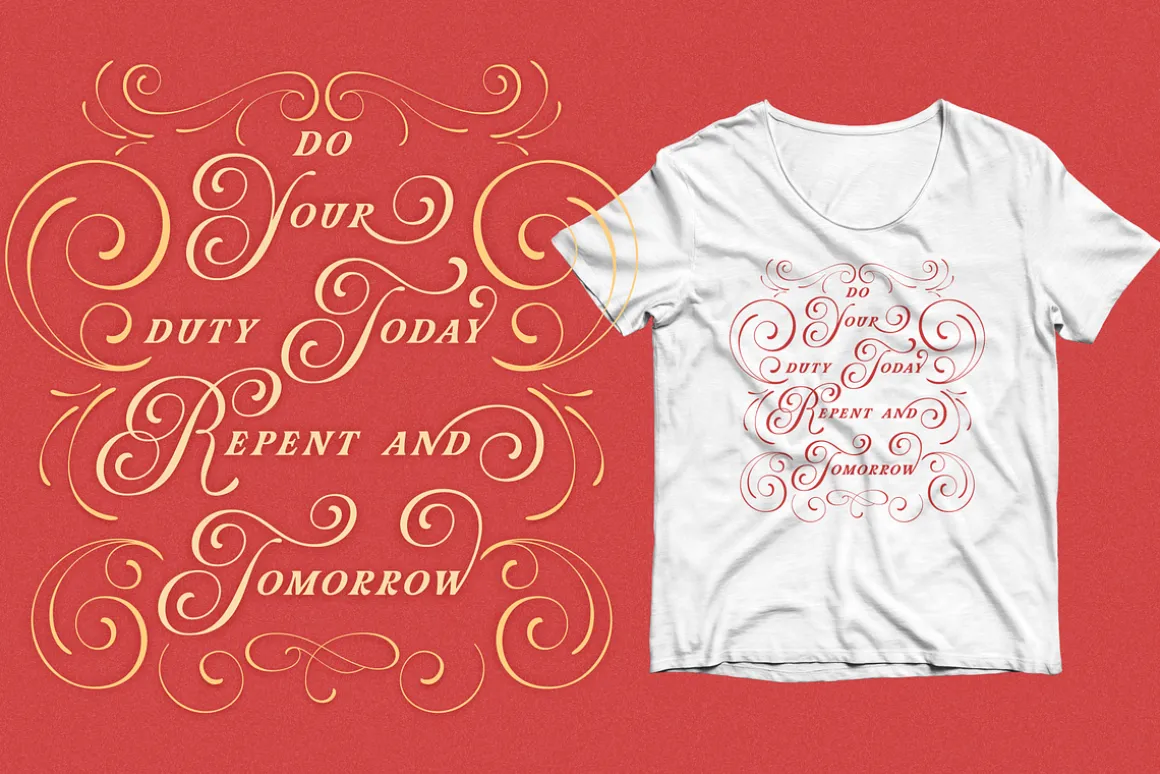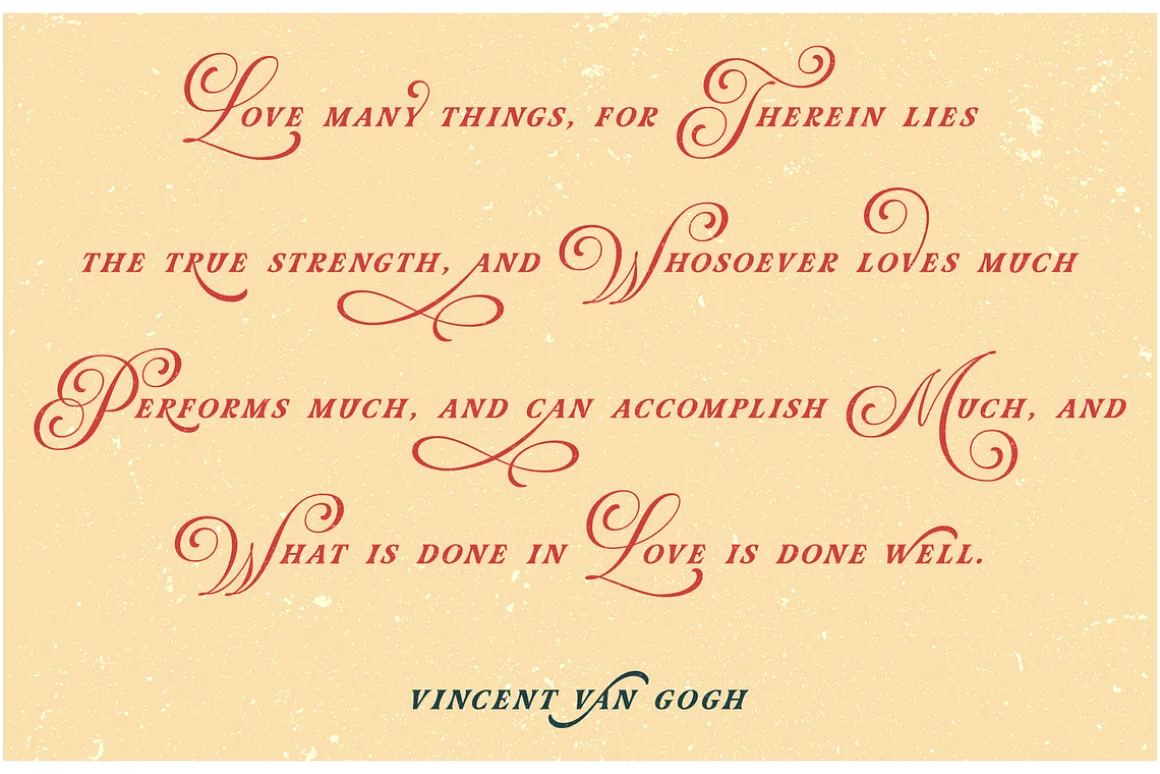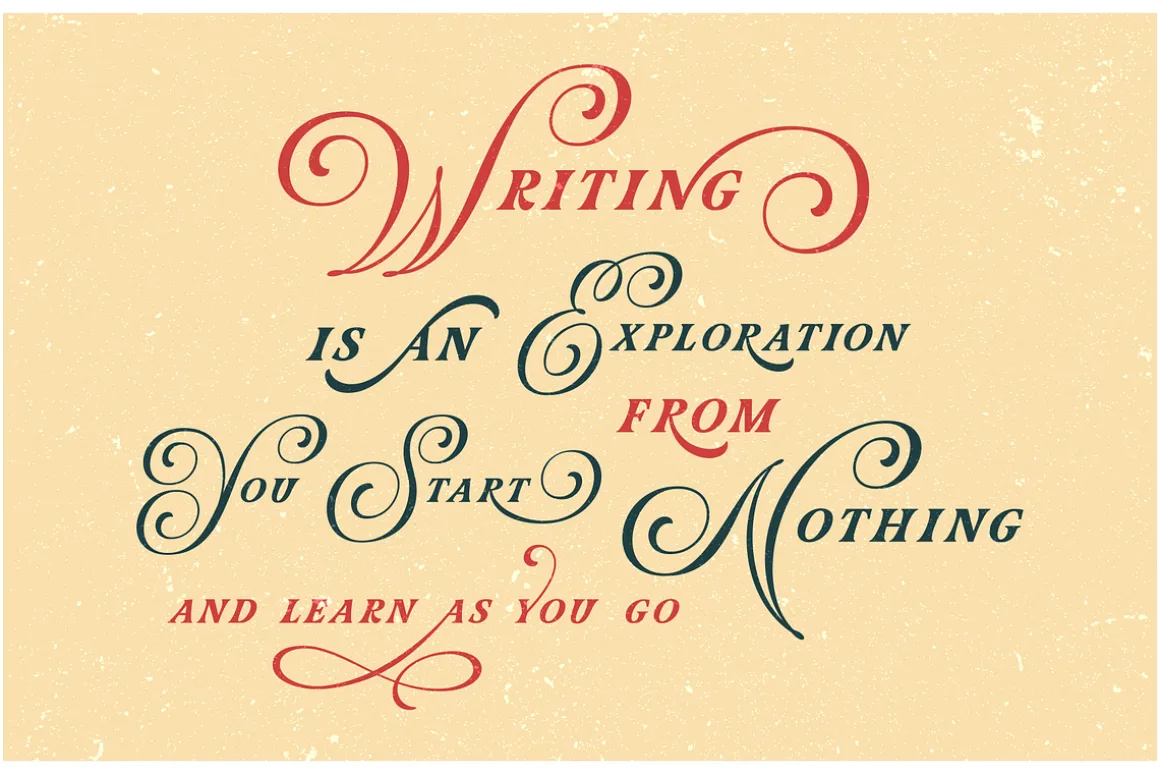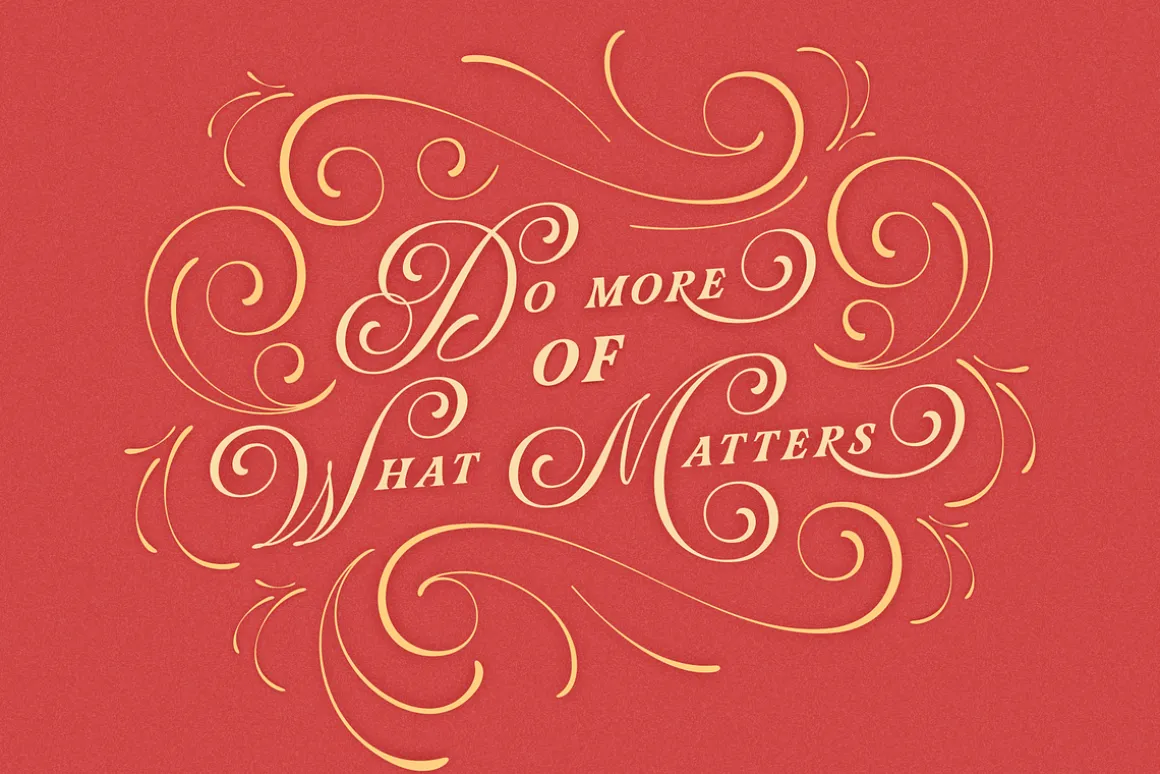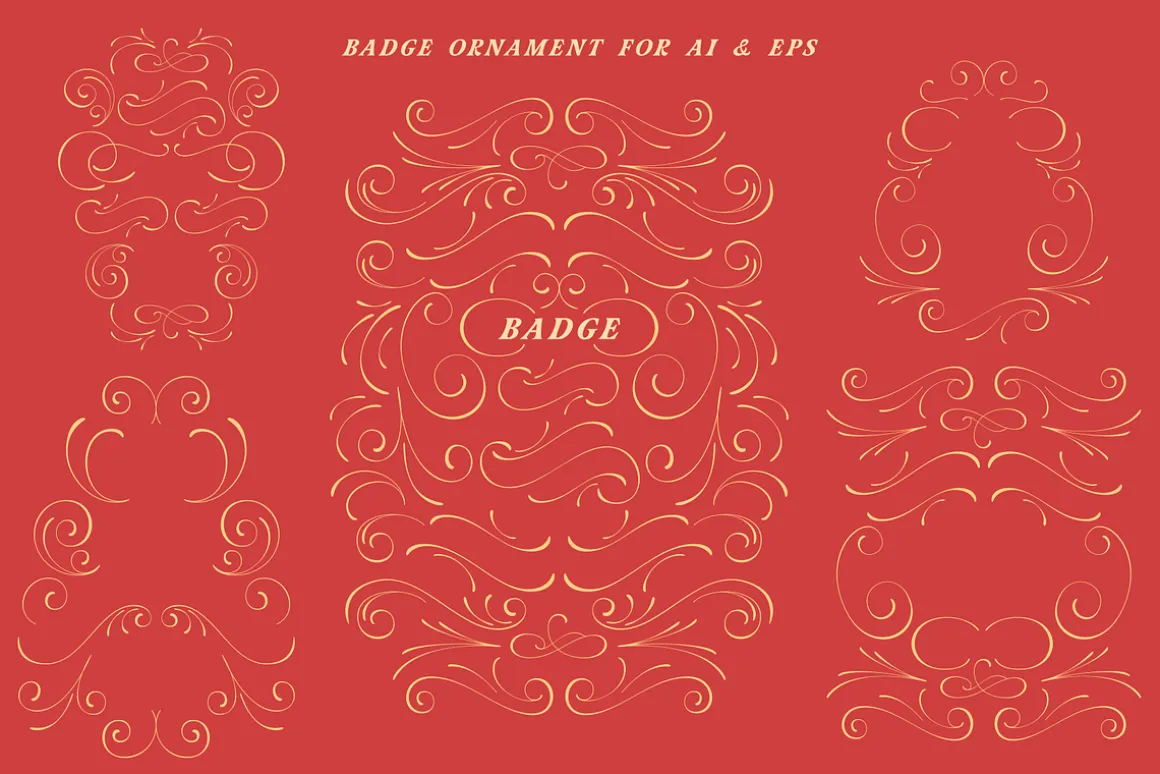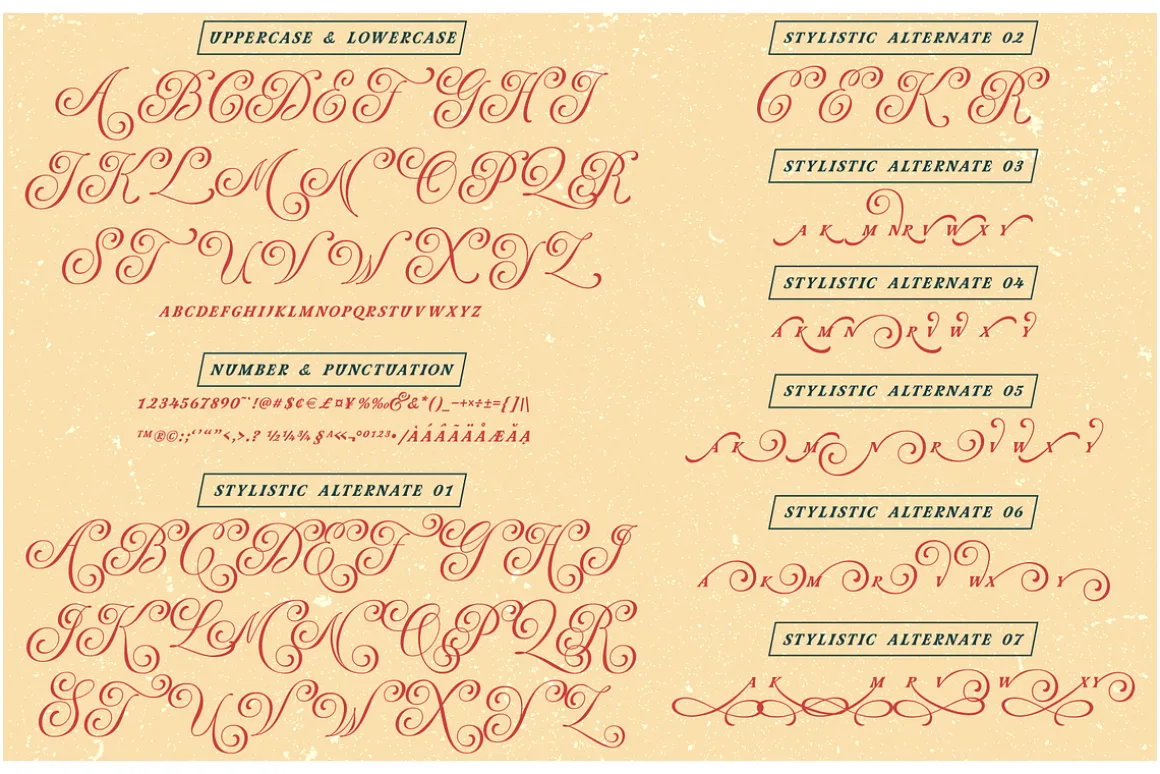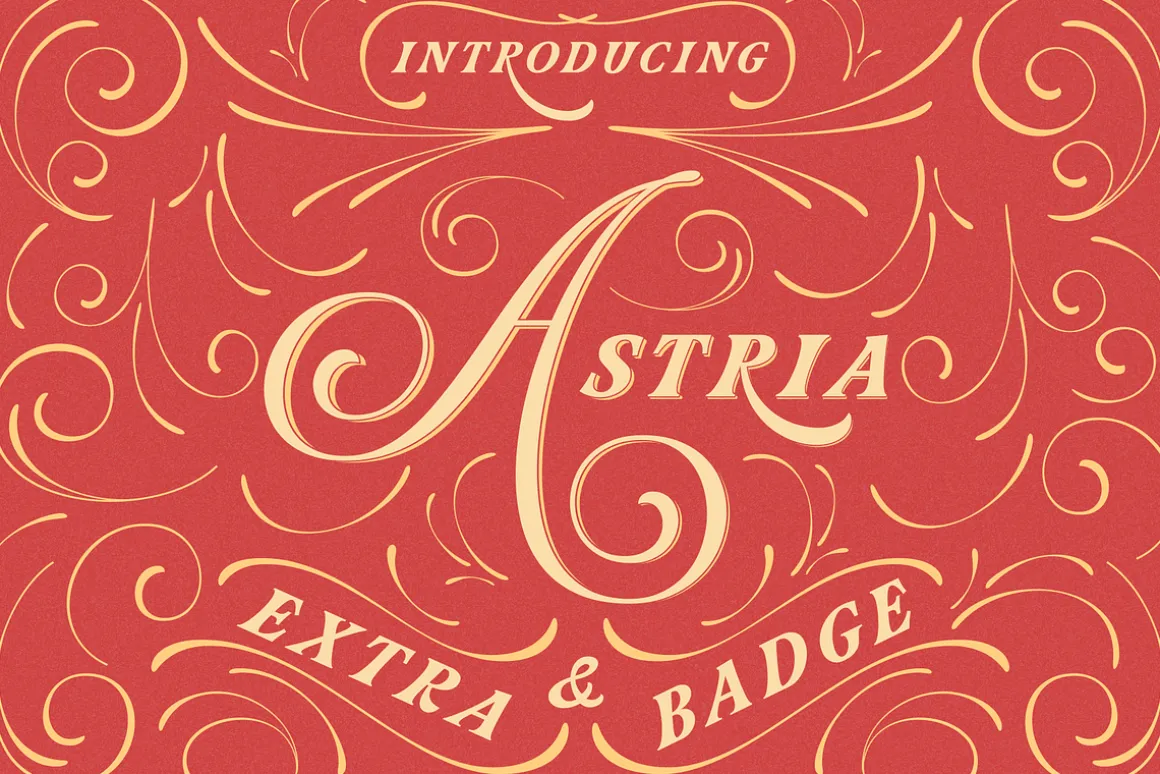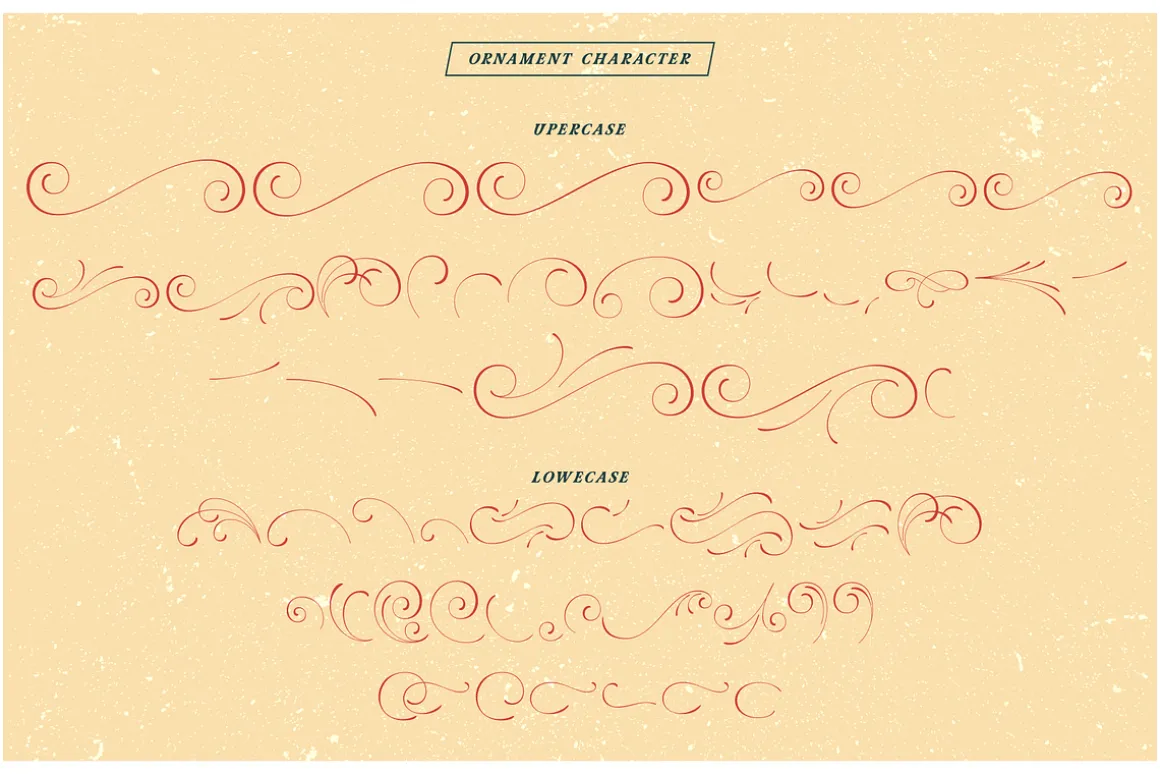
Your search for the perfect alphabet font is over! Astria is a lavish and fashionable font. Astria is a typeface inspired by classic taste and fashion with extreme capital letters. The fonts are suitable to make a design choice for books, magazines, packaging, branding, signage, and more other creative projects. Astria comes with uppercase, lowercase, numerals, punctuations and so many variations on each character include OpenType alternates. Designing with Astria fonts is so fun, make your friends and family love it!
Astria features:
- A full set of upper & lowercase characters
- Numbers & punctuation
- Ligatures
- Stylistic Alternates
- Multilingual symbols